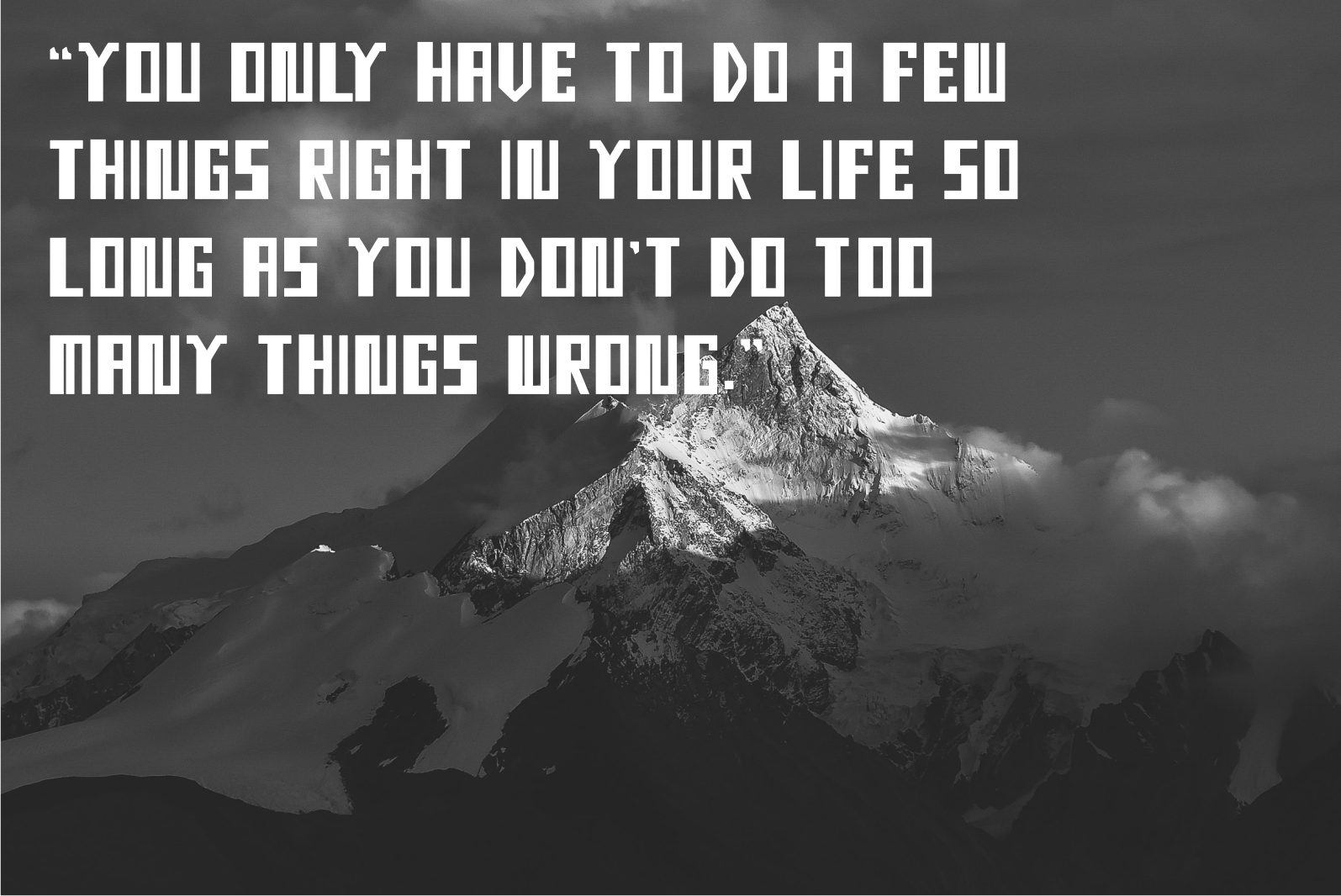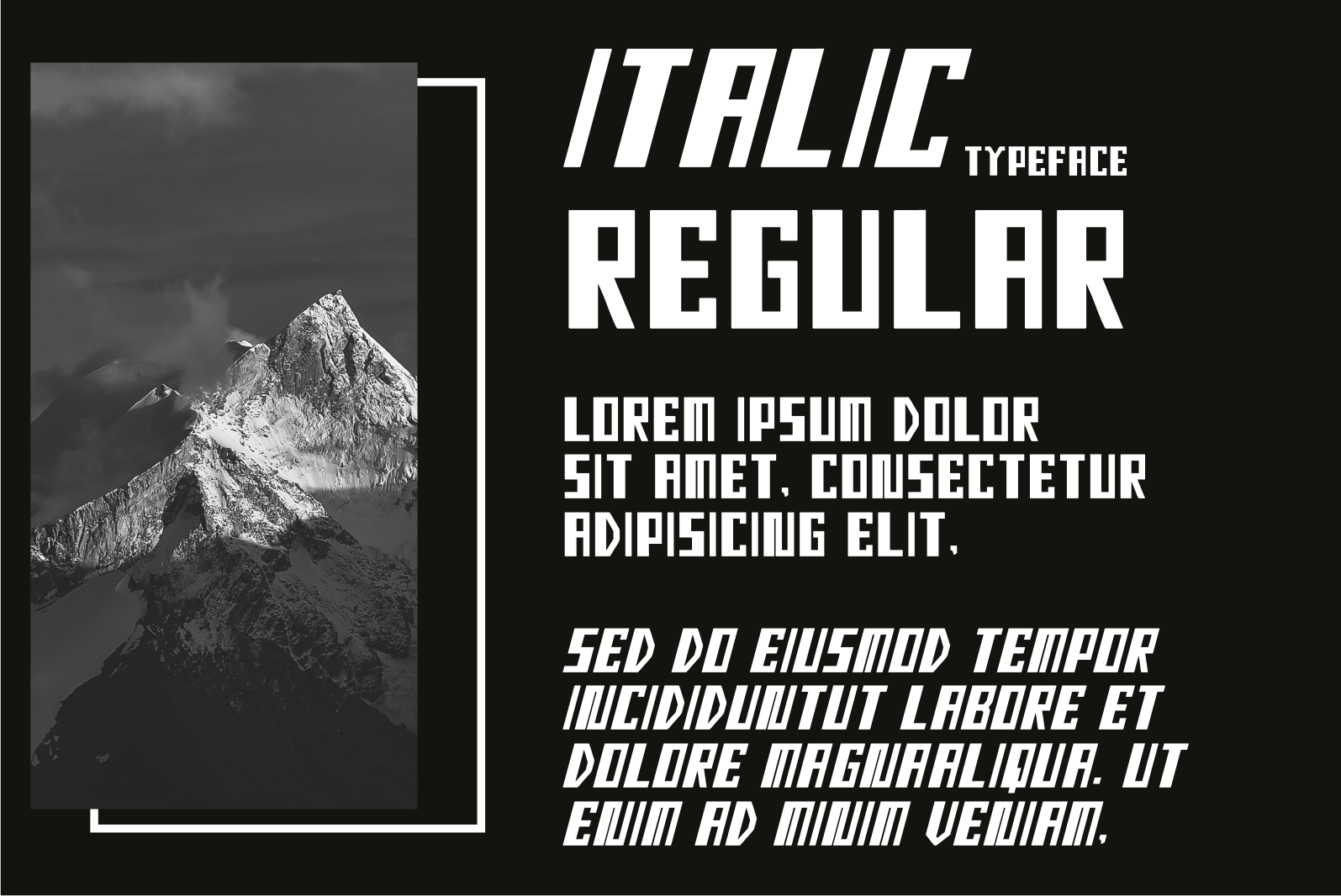
Festal Font
Festal Display Font
It’s a cool and robotic-styled display font. This font is ideal for writing web designs, business cards, or pretty much anything else that requires a futuristic touch.